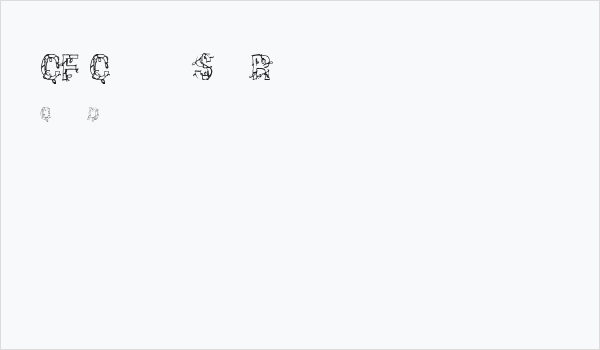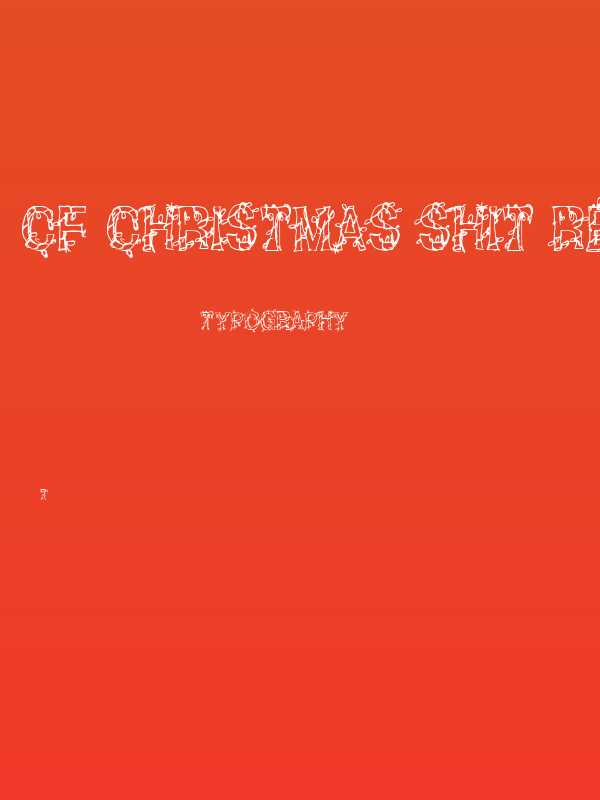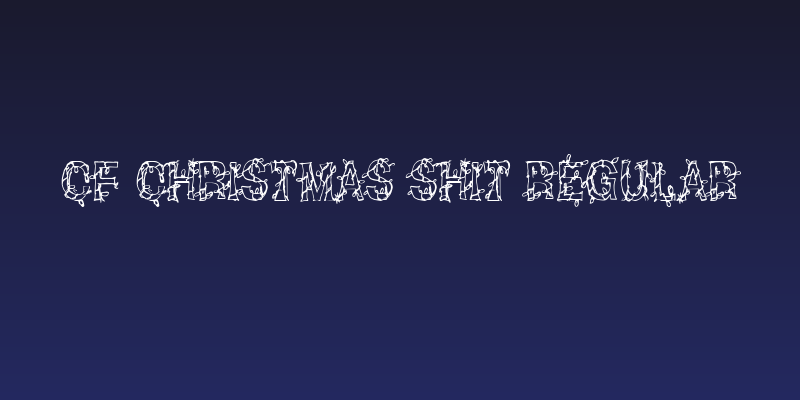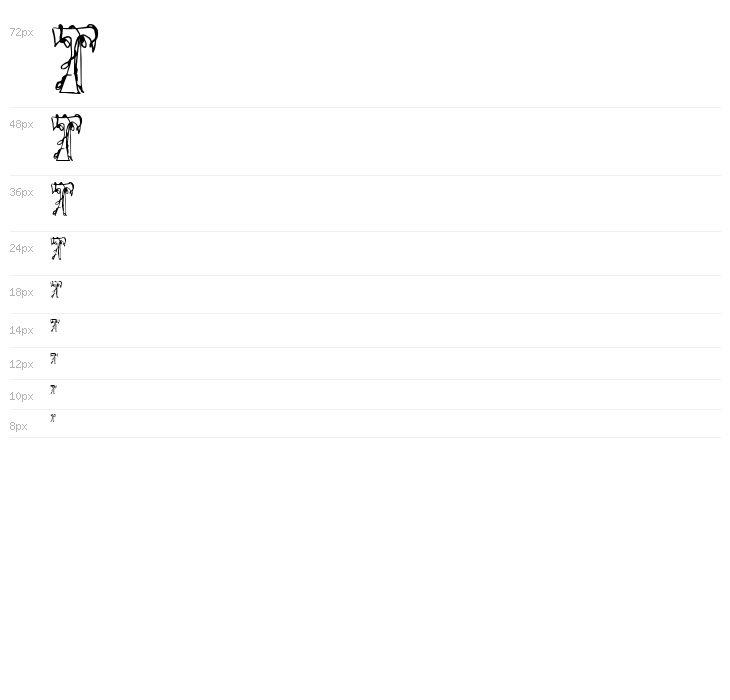
CF Christmas Shit Regular Font
CF Christmas Shit Regular Description
This font features a unique and playful design, incorporating elements reminiscent of Christmas lights wrapped around each letter. The characters are bold and decorative, with intricate details that give them a festive and whimsical appearance. The design is highly stylized, making it ideal for holiday-themed projects. Each letter is adorned with string lights, adding a touch of holiday cheer and creativity. The overall look is both fun and eye-catching, perfect for capturing the spirit of the season.
| Proposed Projects | Ideal for holiday cards, festive banners, Christmas event posters, and seasonal advertisements. |